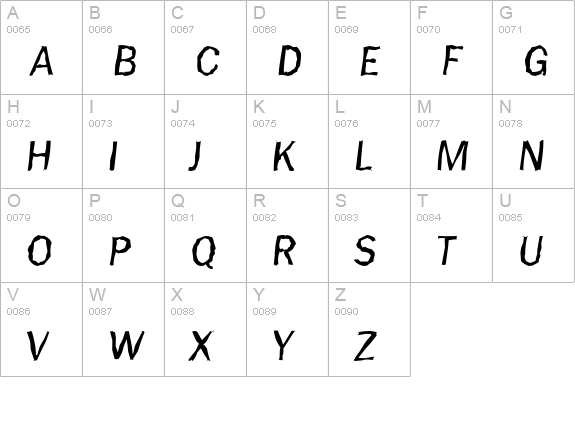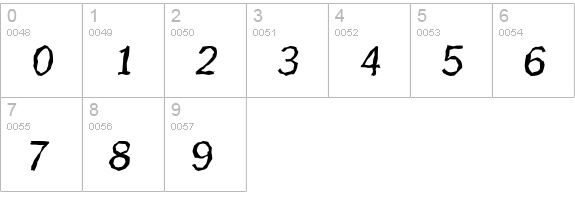
PlymouthRandom-Italic is a distinctive, italic variant in the PlymouthRandom typeface family \xE2\x80\x94 well suited to design and typography projects.
PlymouthRandom-Italic is a beautifully crafted font that exudes modernity and sophistication. Its sleek and stylish italics add a touch of elegance to any design project. The unique and random strokes give this font a playful and artistic flair, making it perfect for creative endeavors. Best of all, PlymouthRandom-Italic is completely free to download at FontsMarket.com. This means you can access this stunning font without any cost, making it a valuable addition to your font collection. Whether you're working on a branding project, website design, or any other creative venture, PlymouthRandom-Italic is sure to elevate your work with its distinctive charm. Download it today and unleash your creativity with this exceptional font!